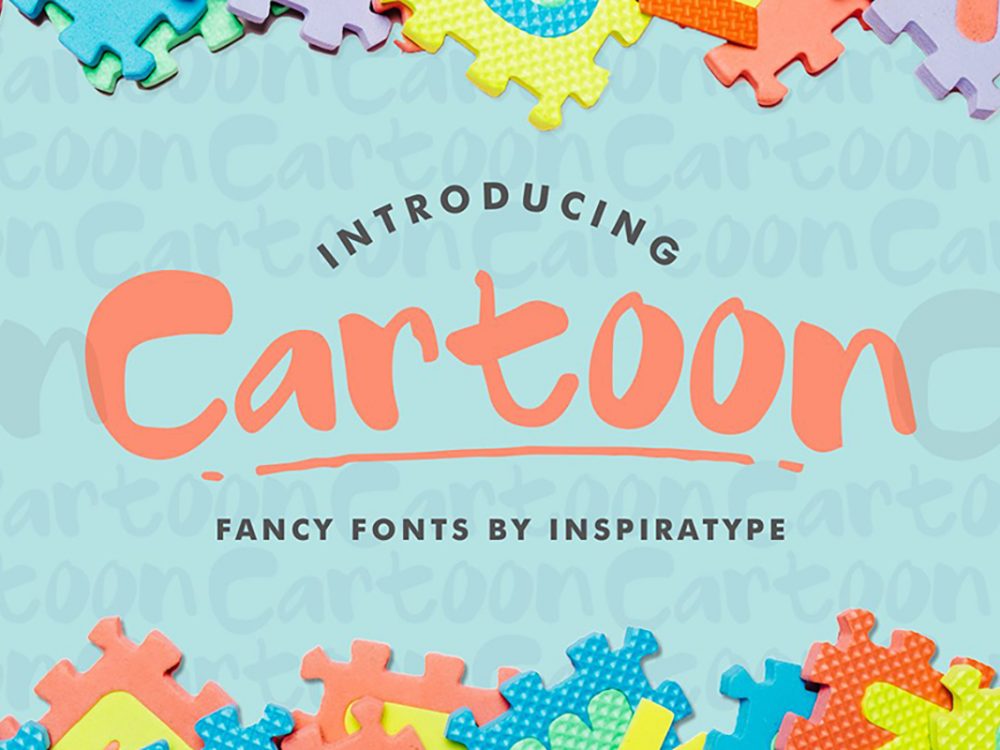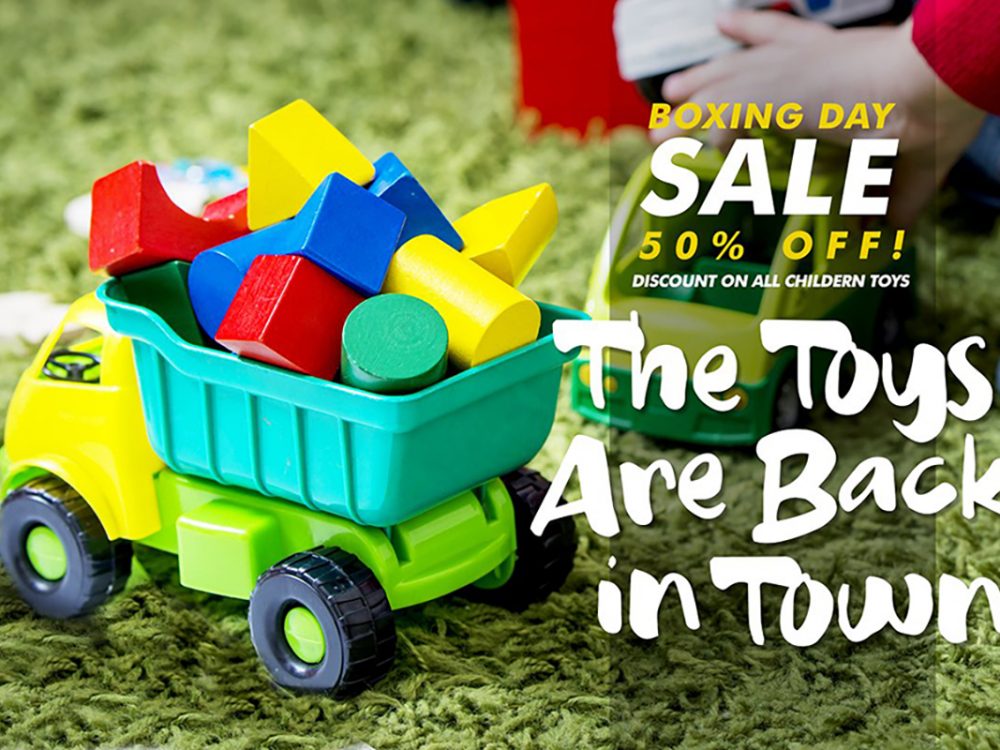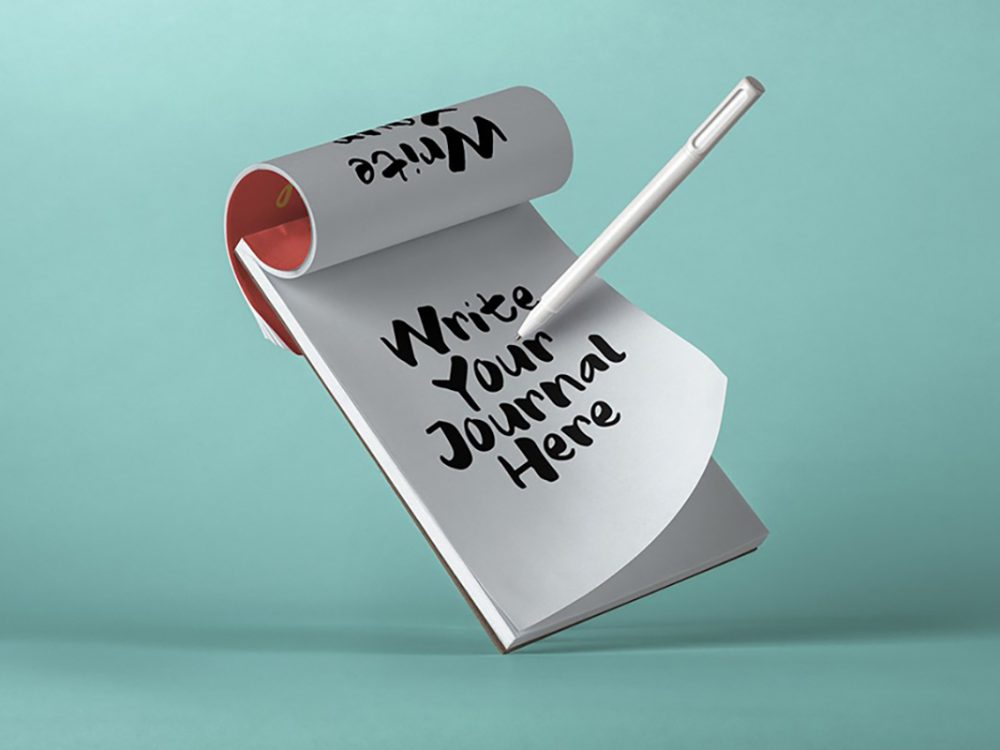
Cartoon Fancy Font Demo
Cartoon Fancy Font Demo is an interesting funny handwritten font that is suitable for many design projects in children’s style. Use this font to create children’s posters, cards, invitations, flyers, prints, and more. If you wish to access more features and use them for commercial work please buy the full version.